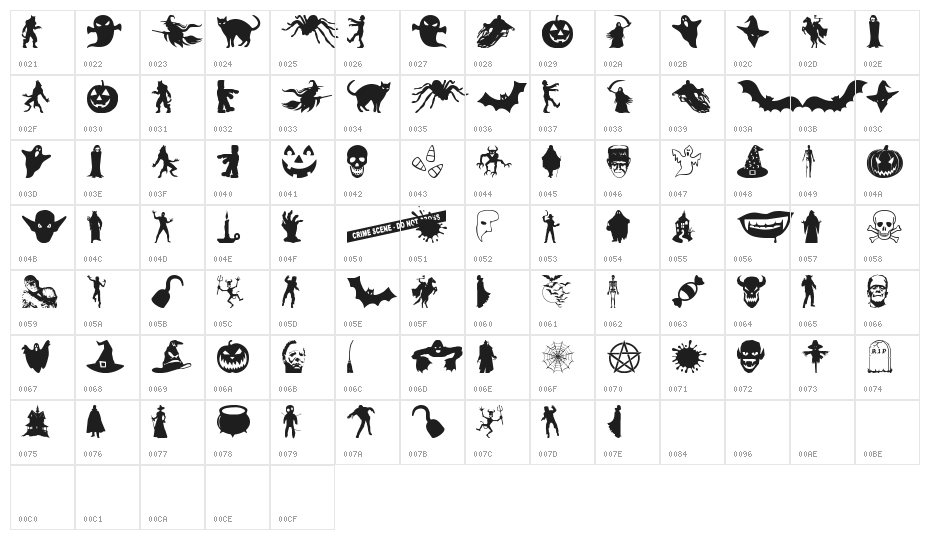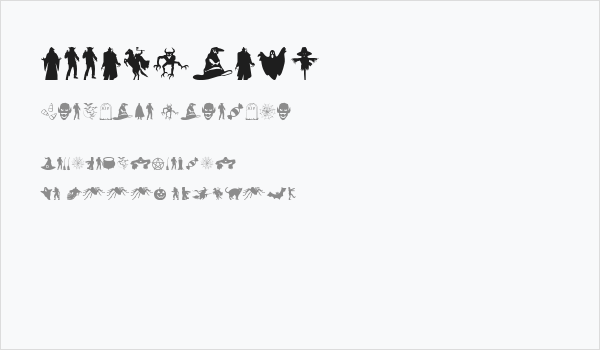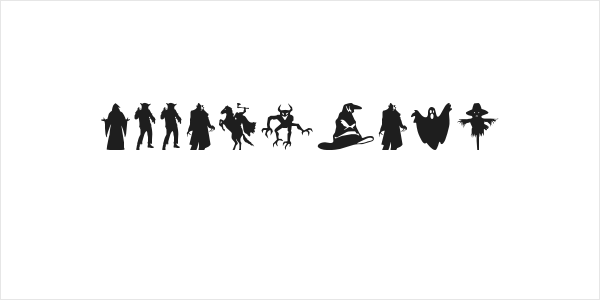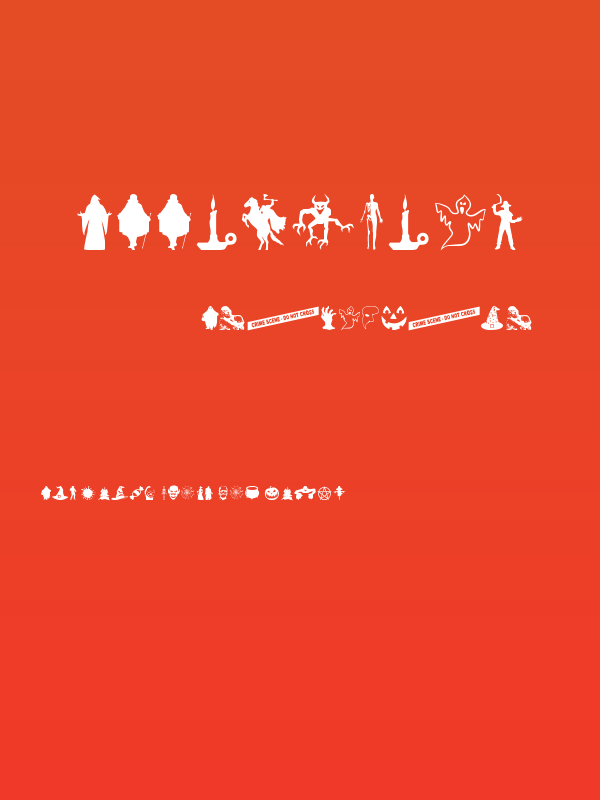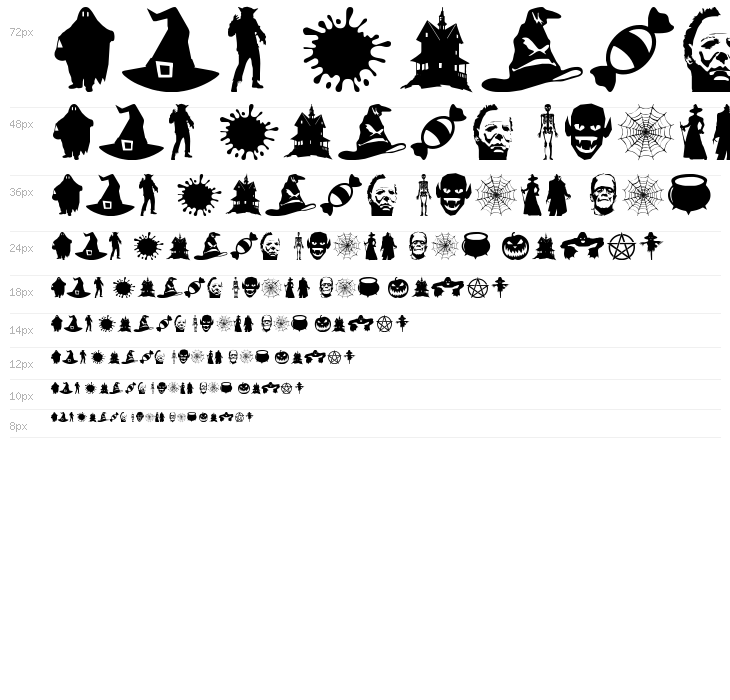
Ween-Dings Font
Ween-Dings Description
This is a decorative font featuring a collection of Halloween-themed icons and symbols. Each character is represented by a unique silhouette, including pumpkins, skulls, witches, ghosts, and other spooky elements. The designs are bold and striking, making them ideal for seasonal projects. The icons are detailed and varied, providing a wide range of imagery to choose from. This font is perfect for adding a festive and eerie touch to any Halloween-related design work.
| Use Case | Logos, Posters, Invitations |
| Proposed Projects | Ideal for Halloween party invitations, themed posters, seasonal decorations, and spooky social media graphics. |